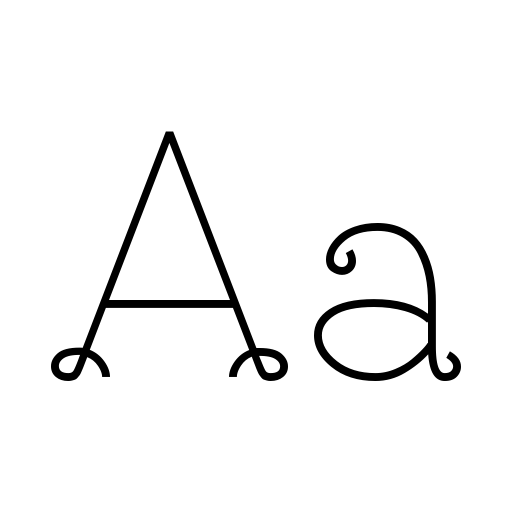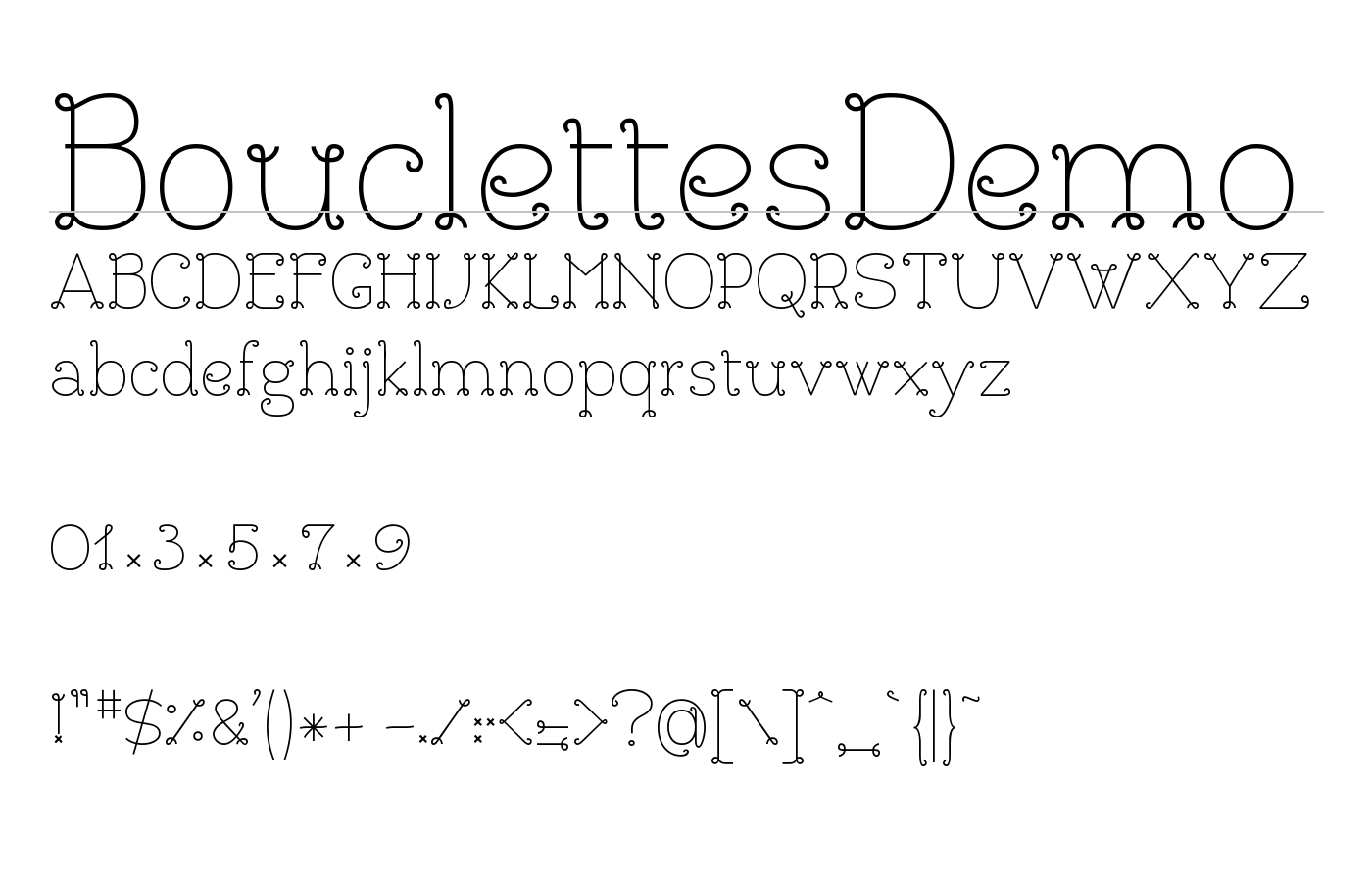
BouclettesDemo is a delicate, whimsical serif font characterized by its thin strokes and playful, looped terminals that add a unique decorative touch to each letter. With its light weight, normal width, and consistent x-height, it evokes a charming, vintage-inspired feel perfect for creative projects that seek an elegant yet quirky personality. This font shines in use cases like invitations, branding for boutique or artisanal products, and artistic editorial designs where a touch of sophistication combined with fanciful flair is desired.
BouclettesDemo Font
About BouclettesDemo Font